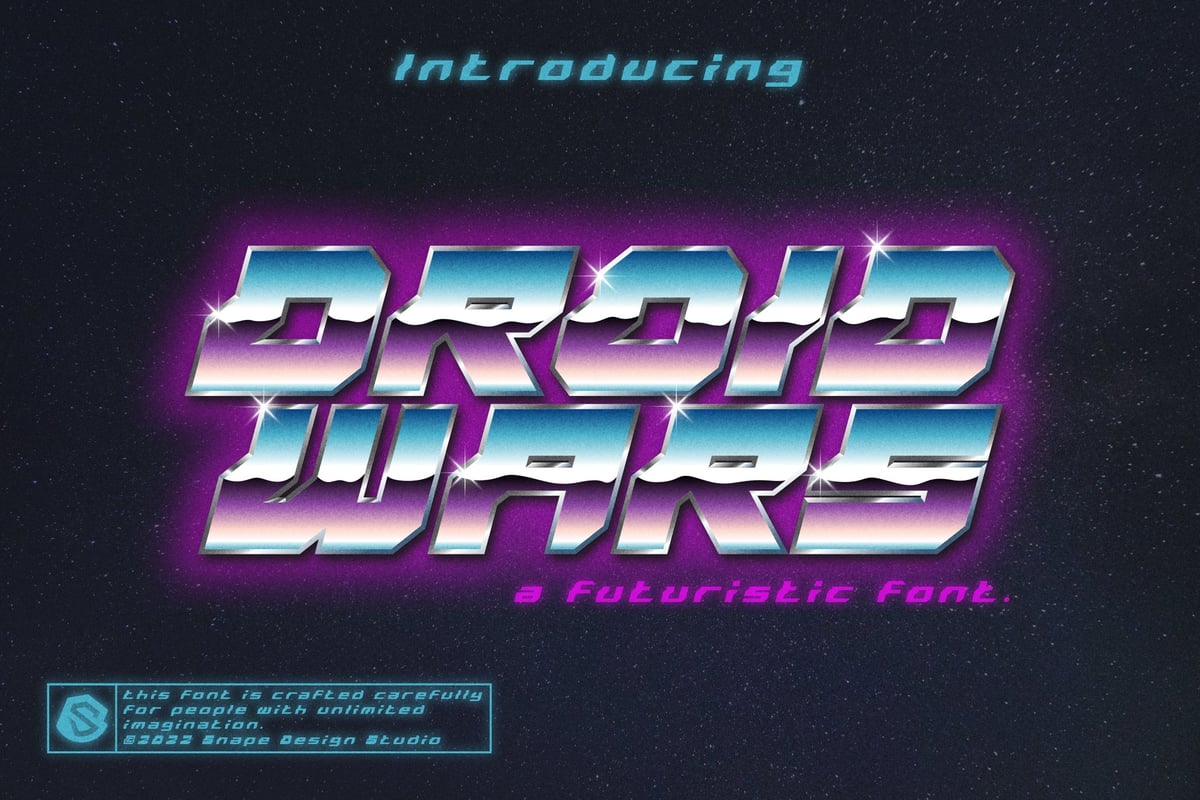
Droid Wars - Futuristic Font
Transform your designs with this striking futuristic font that screams space-age sophistication. Droid Wars delivers the perfect futuristic aesthetic for technology, digital, and space galaxy themed projects. This versatile typeface elevates movies, documentaries, films, logos, posters, games, book covers, headlines, titles and countless other creative projects. Add this font to your creative arsenal and watch your designs command attention with its bold, sci-fi inspired character set. Installat...